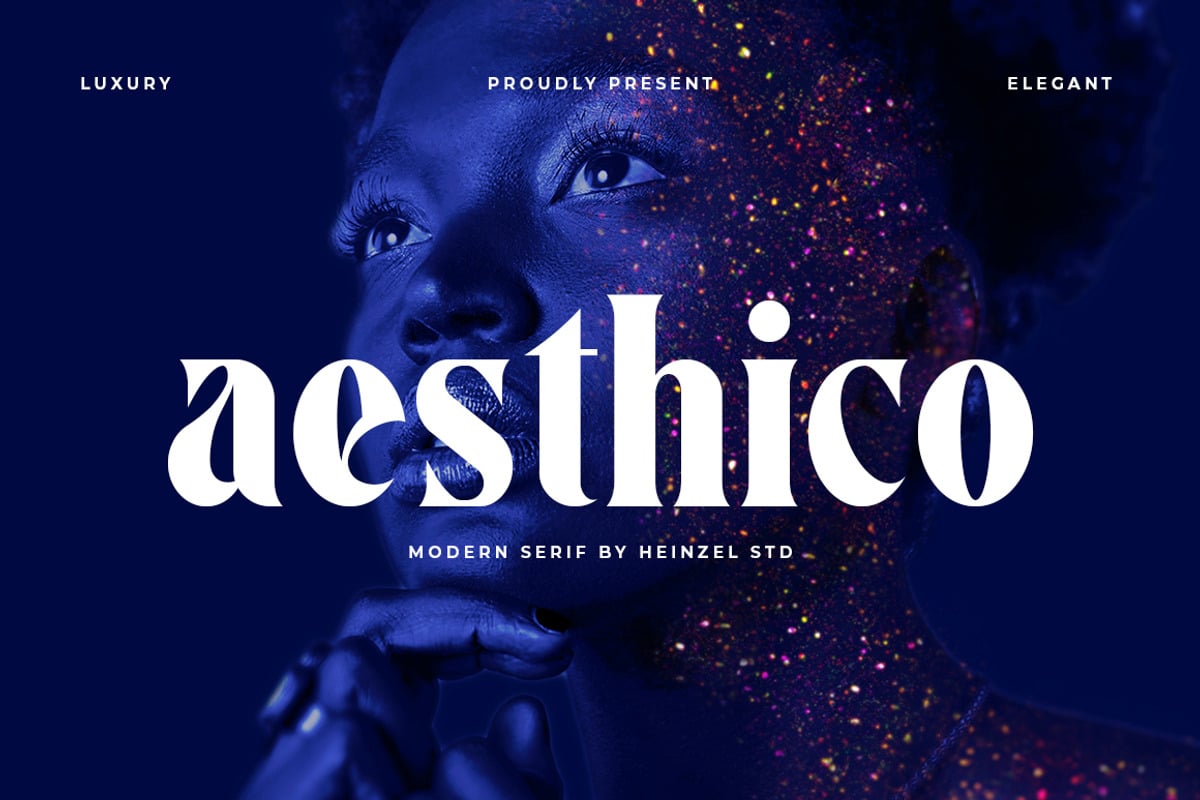
Aesthico Bold Serif Font
A bold, high-contrast serif built for luxury branding, fashion editorials, and premium design work.
Aesthico Bold Serif is a modern luxury typeface designed to deliver elegance, strength, and timeless sophistication in every letterform. With its bold structure, refined curves, and high-contrast strokes, Aesthico blends classic serif traditions with a contemporary aesthetic — making it a standout choice for high-end branding and editorial design.
Crafted for designers who want to make a powerful visual statement, this font excels in logos, fashion branding, magazine headlines, packaging, and premium marketing materials. Its clean yet expressive character ensures excellent readability while maintaining a distinctive and artistic presence. The bold weight enhances impact, helping your designs command attention with confidence and style.
Aesthico Features:
- Bold serif with refined, high-contrast letterforms
- Includes numerals and extended punctuation
- Multilingual language support
Aesthico Bold Serif is ideal for any project demanding a luxurious, elegant, and modern touch — whether you're building a brand identity or crafting visually striking typographic layouts.